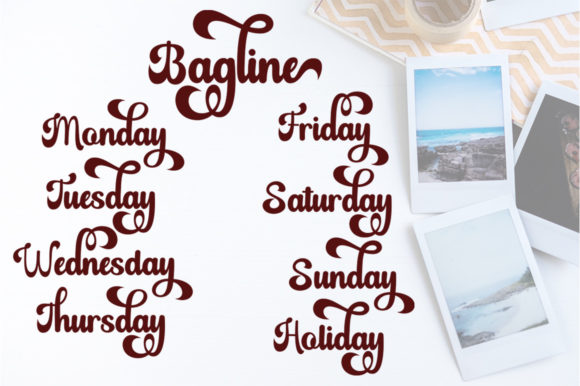
Bagline Script Font
db-ku.com - Script & Handwritten -- Bagline Script is a retro styled and sophisticated handwritten font that’s great for delivering any message with confidence, authenticity and charm. It will elevate a wide range of crafting ideas, from cards, to branding, labels and much more.